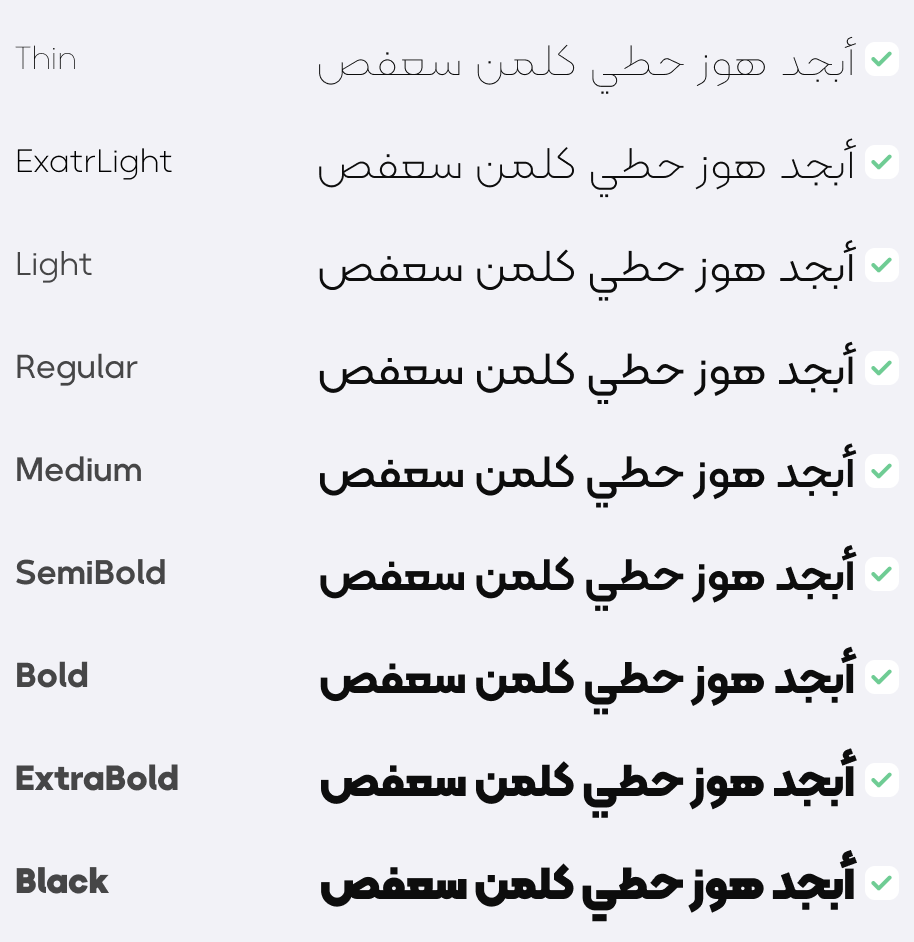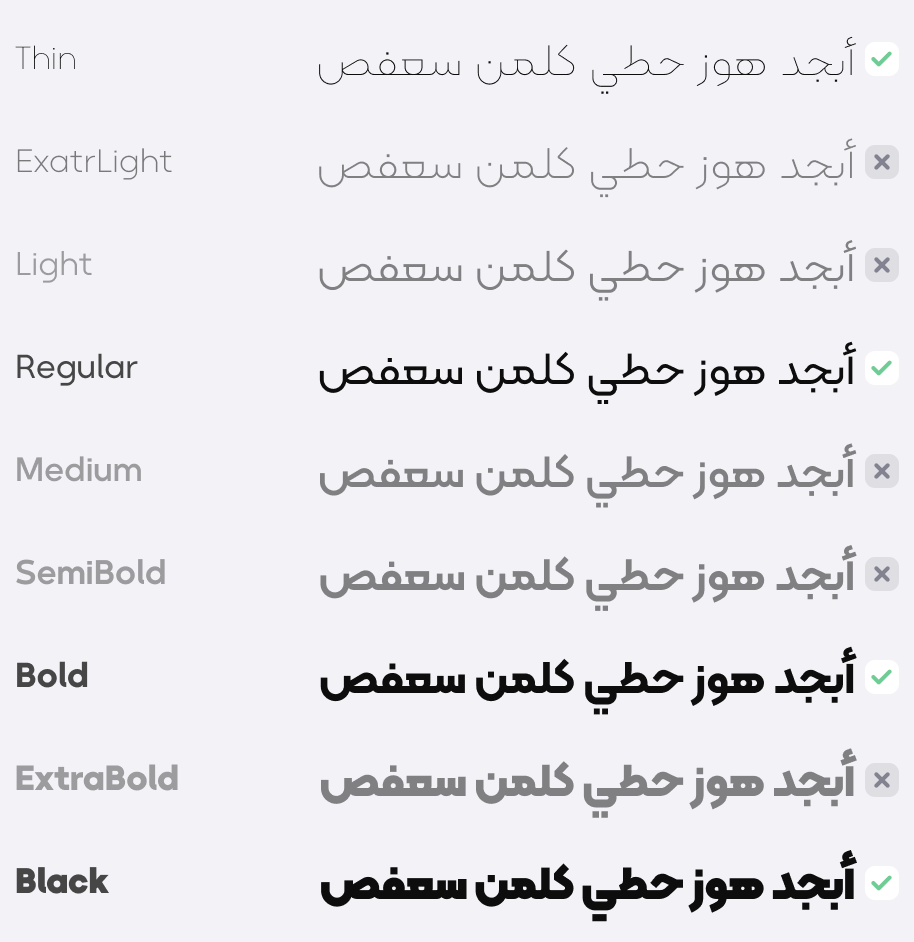
Kalameh
Weight variation
The Kalameh typeface is a complete family that has 9 weights. From thin to black, it provides you with a complete variety of thickness and darkness.
Kalmeh has 9 weights in its professional package and 4 standard weights in its professional package, which are intended for various applications - from the printing industry to virtual spaces. The Kalameh font family has also been optimized for use in web spaces, and the required files have been placed next to the original files.
English characters
Due to harmony with Persian letters, English characters are also designed in harmony with Persian letters for Kalameh typeface.
Optional Combinations (Discretionary Ligatures)
In the Kalameh typeface, there are a number of optional alternative combinations that you can manually activate these optional combinations in graphics software (to learn how to activate, you can see the help file in the font package).
Stylistic set optional alternate letters
by activating Stylistic set, you can use alternatives for the letter " ک ", "ـع " and " ـی". If you wish, you can manually activate these optional alternative letters in graphics software (to learn how to activate, you can see the help file in the Kalameh font package).
required ligatures
In the Kalameh typeface, appropriate alternatives have been designed and activated by default for the connections "لا" and the holy word "الله"